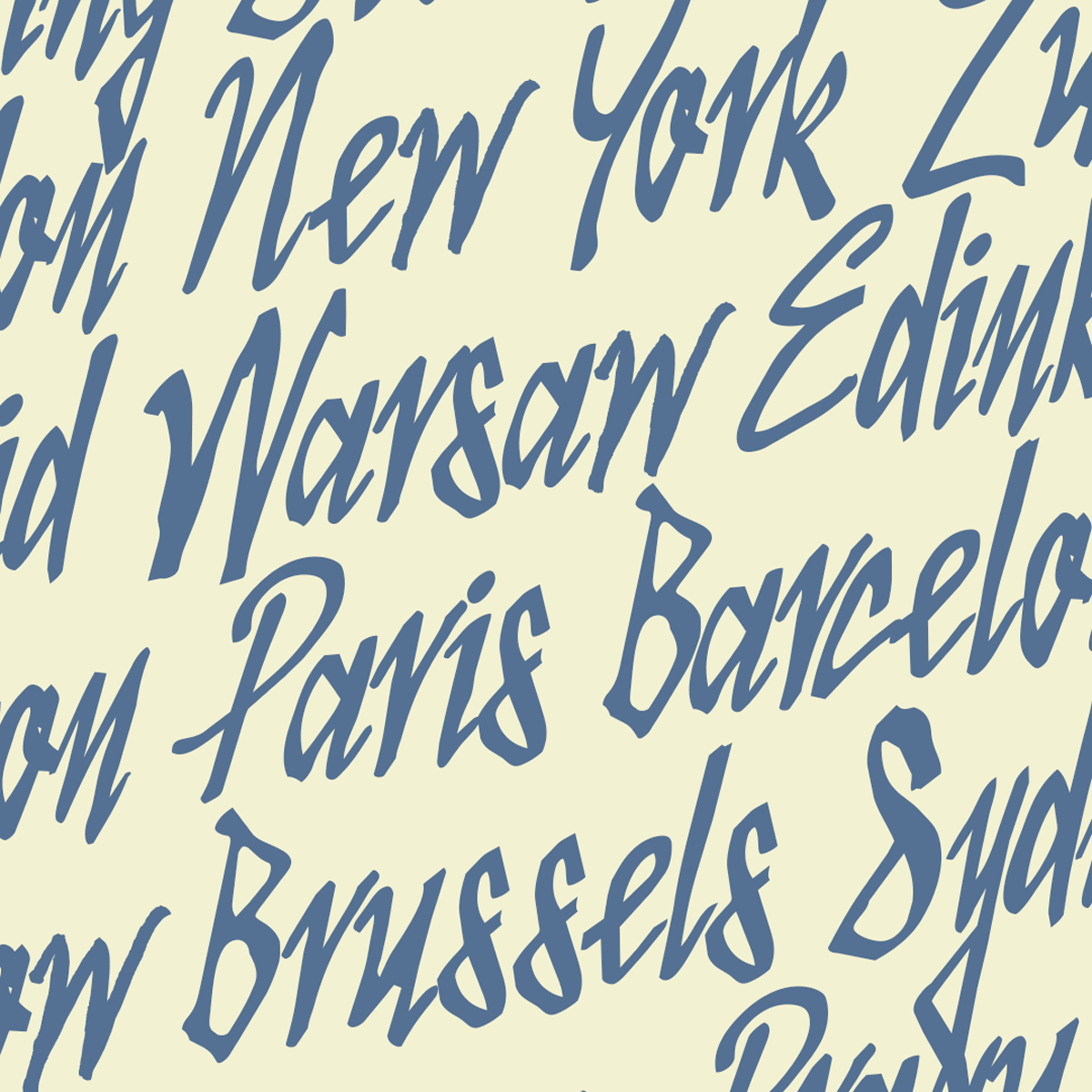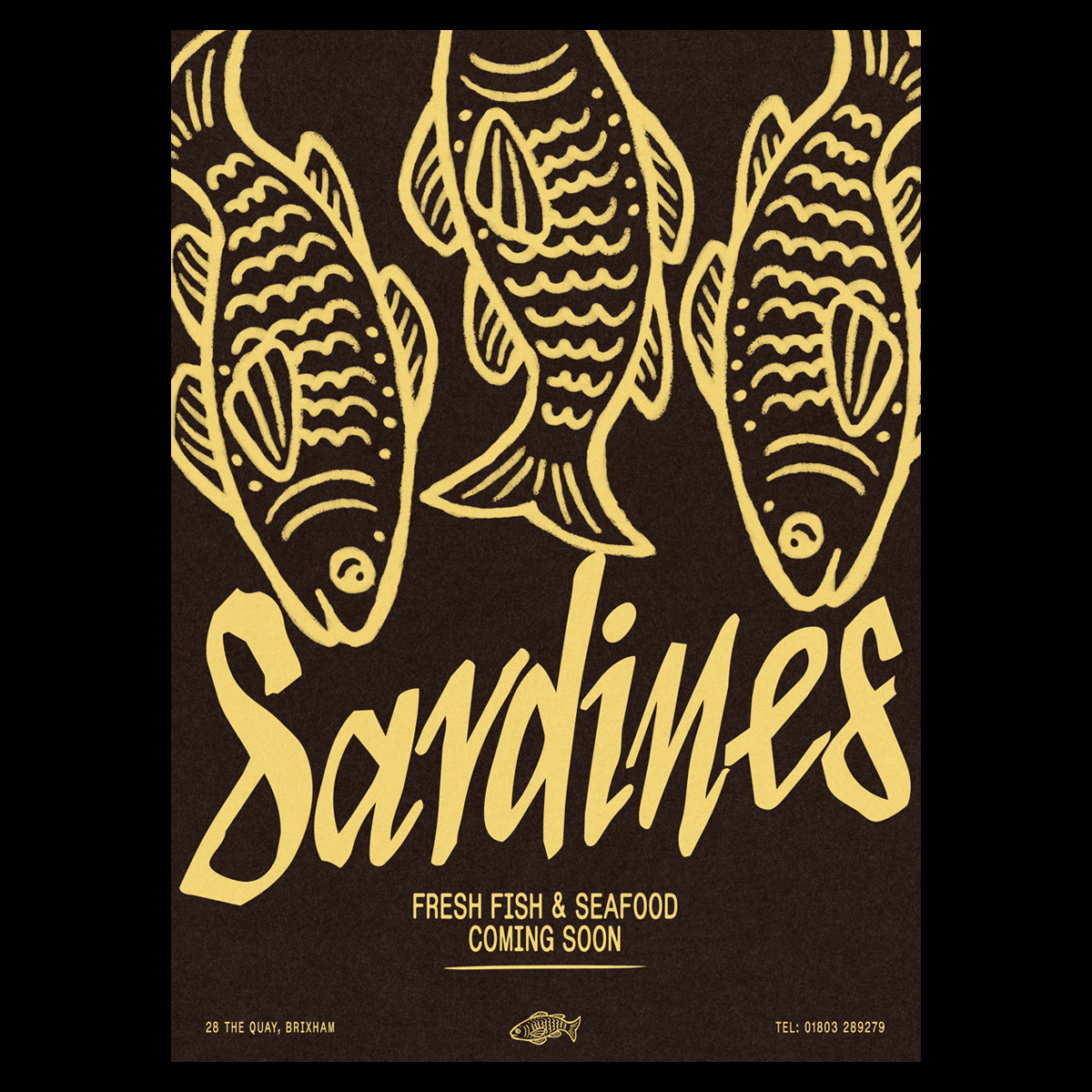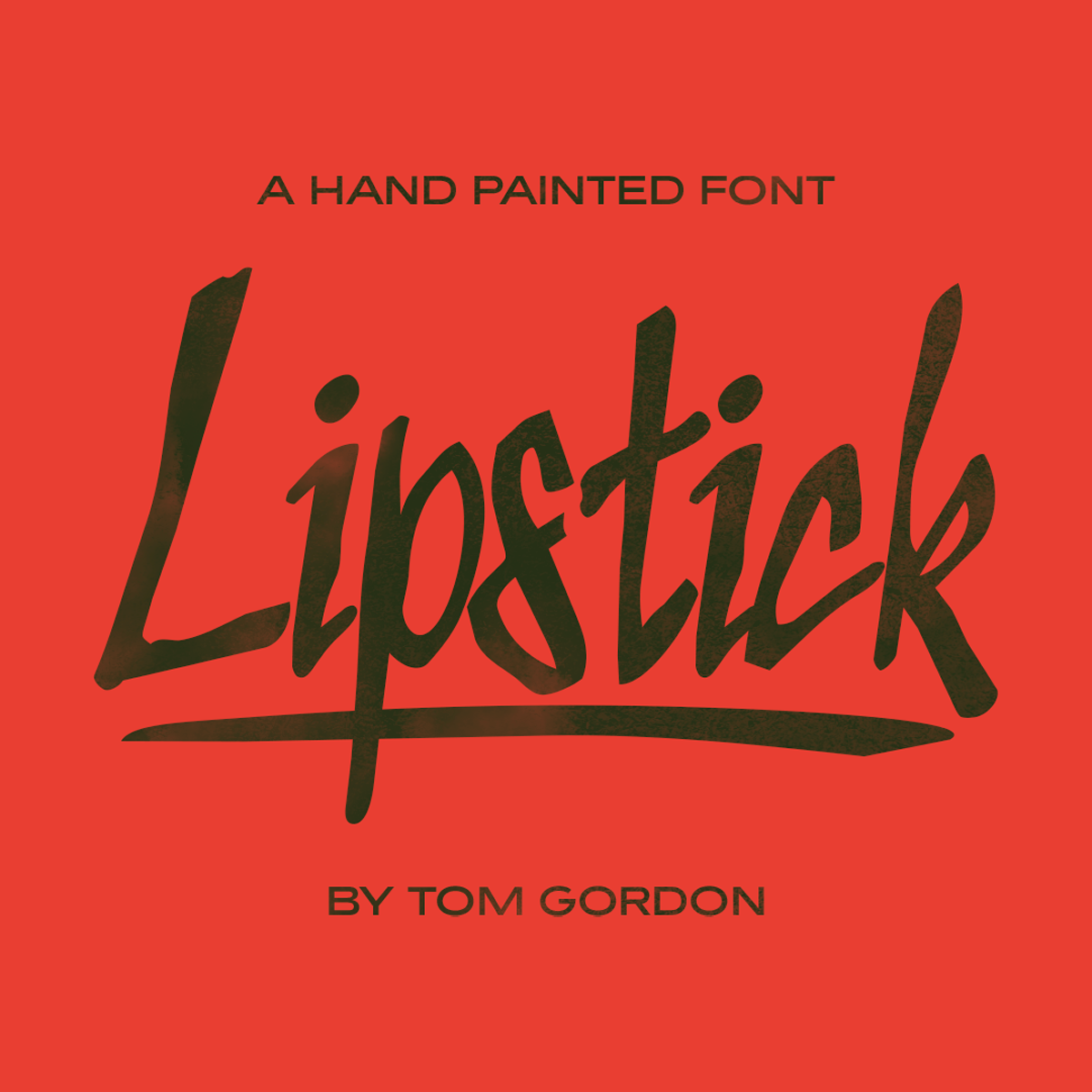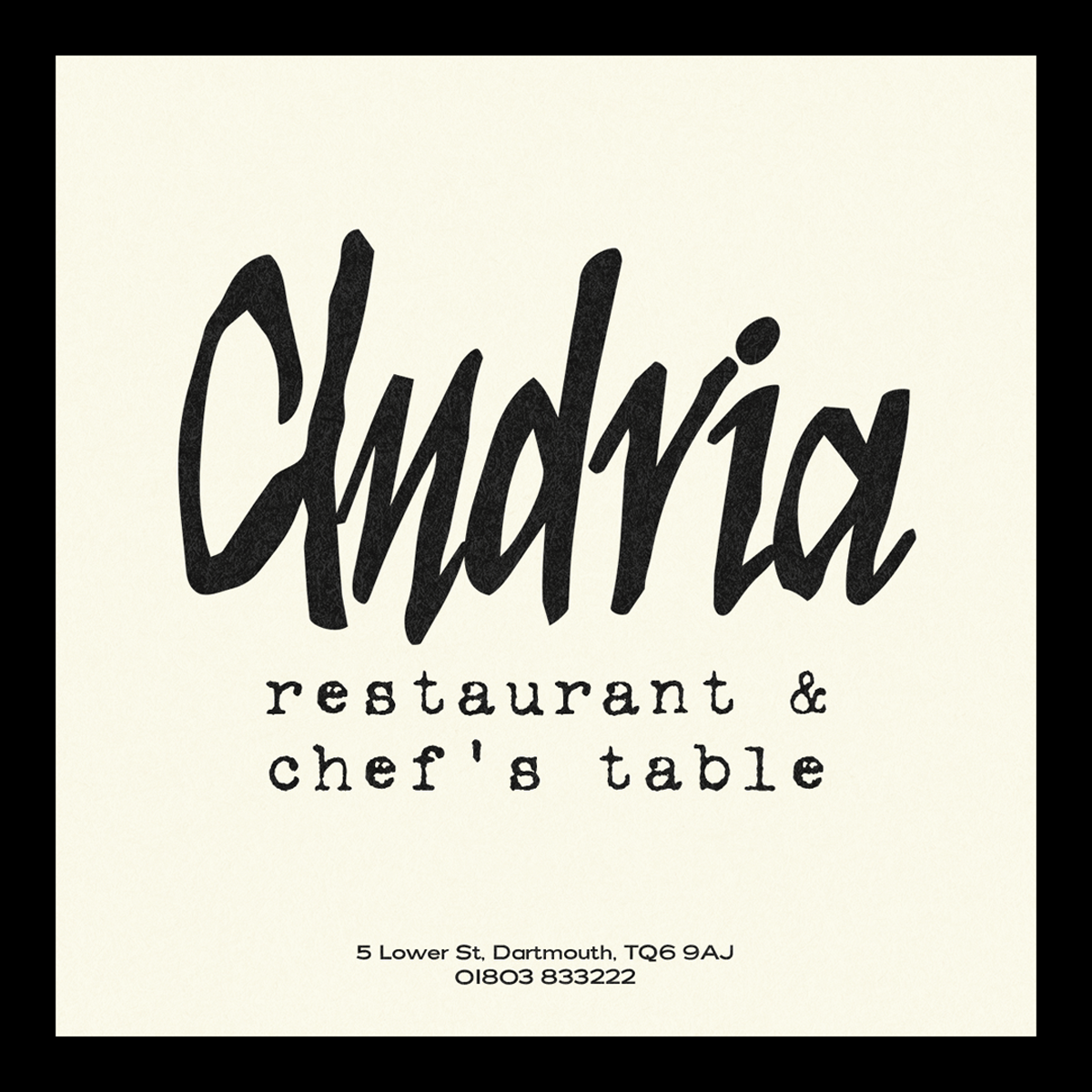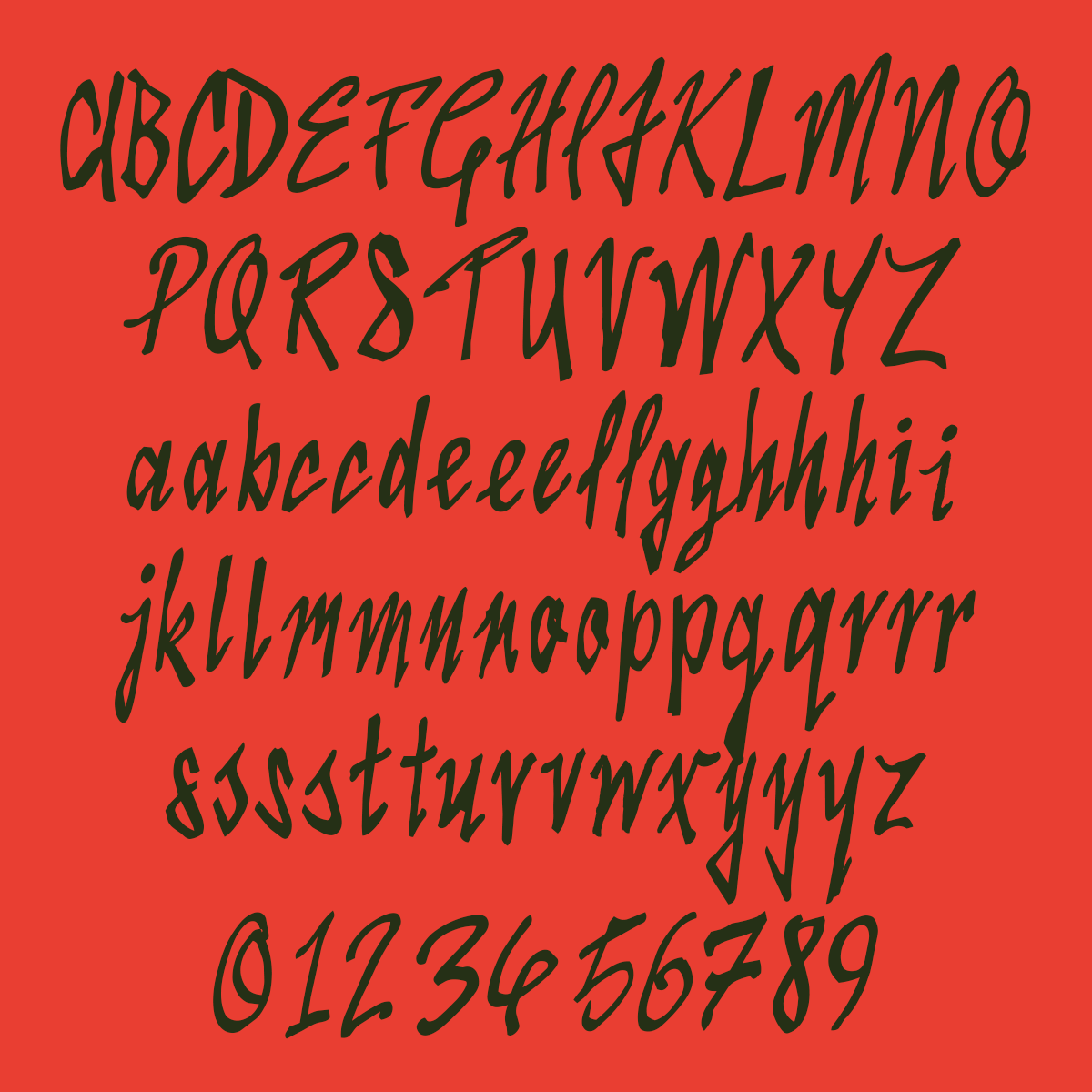
Lipstick is my hand painted script font! Inspired by French Cafe signage this font is perfect for adding that hand-crafted character to design. Perfect for branding, menus, posters, business cards, T-shirts, Tote bags and a whole host of other applications!
Full alphabet (Uppercase and Lowercase with alternative letter options)
Numbers and essential symbols